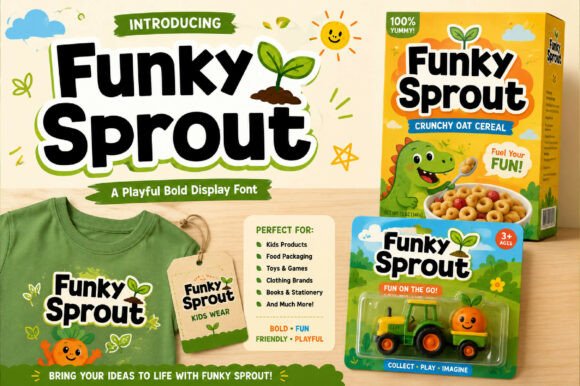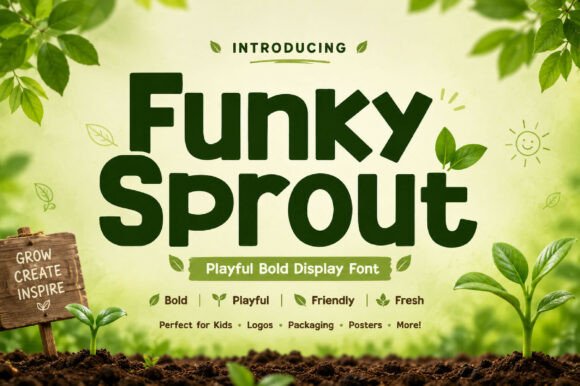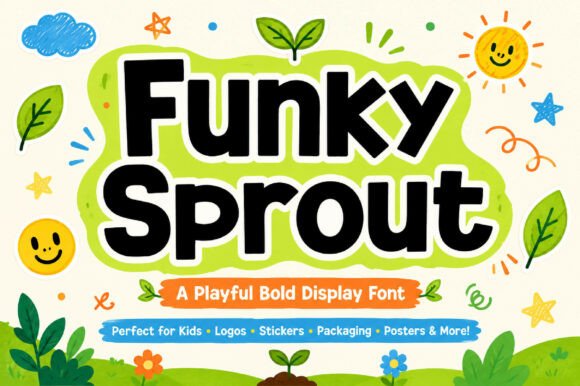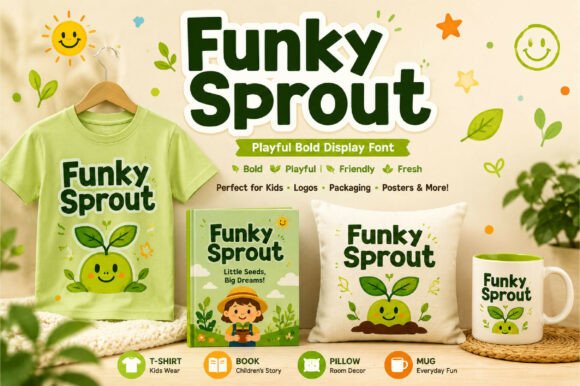
Introduction to Funky Sprout Font
Have you ever found yourself rummaging through your grandparents’ attic, uncovering dusty boxes filled with vintage treasures? The smell of old photographs and forgotten memories fills the air, and suddenly, you’re transported to a bygone era. That’s exactly the feeling you’ll get when you unleash the playful charm of the Funky Sprout Font – a retro-inspired display font that’s bursting with energy and personality.
As a designer, you’re always on the lookout for the perfect font to elevate your creative project. Whether it’s a poster, logo, or social media campaign, a high-quality font can make all the difference. That’s where Funky Sprout Font comes in – a free download that’s sure to add a touch of whimsy to your design. With its transparent background and bold, geometric forms, this font is perfect for designers who want to add a dash of creativity to their work.
What sets Funky Sprout Font apart from other design resources is its unique blend of retro charm and modern style. This versatile font is perfect for a wide range of applications, from event visuals to packaging and apparel decor. So why settle for a boring, generic font when you can unleash the fun and personality of Funky Sprout Font? Download it today and take your design to the next level!
Key Features of Funky Sprout Font
- Unique, hand-crafted design elements that add a touch of personality to any project, setting it apart from other fonts in its class.
Honest Review: Funky Sprout Font
I recently stumbled upon the Funky Sprout Font while searching for a design resource to add some personality to a creative project. I was excited to see if it lived up to its quirky name.
Here are some things that work well with the Funky Sprout Font: ✨
- Unique and playful design
- Limited font weights and styles (only bold and regular)
- No italic or oblique options
- Not suitable for professional or formal design projects
Overall, I think the Funky Sprout Font is a great addition to any design library, especially for personal or creative projects. While it may not be the most comprehensive font, its playful design and free download make it a valuable resource for designers looking to add some flair to their work.
Design Tips and Tricks
To get the most out of Funky Sprout Font, use it for creative projects that require a unique and playful touch. This font is perfect for social media graphics, blog posts, and marketing materials. Additionally, use the transparent background feature to create visually appealing designs.
Funky Sprout Font is commonly used for:
- Blog posts and articles
- Print and digital design
Alternatives to Funky Sprout Font
Great Vibes is a high-quality, elegant script font ideal for creative projects requiring a touch of sophistication. It’s perfect for designing wedding invitations, menus, or any other document where a refined look is necessary.
Compared to Funky Sprout Font, Great Vibes has a more polished appearance and is suitable for a wide range of design applications. It’s a great choice for designers seeking a high-quality, free download font with a transparent background.